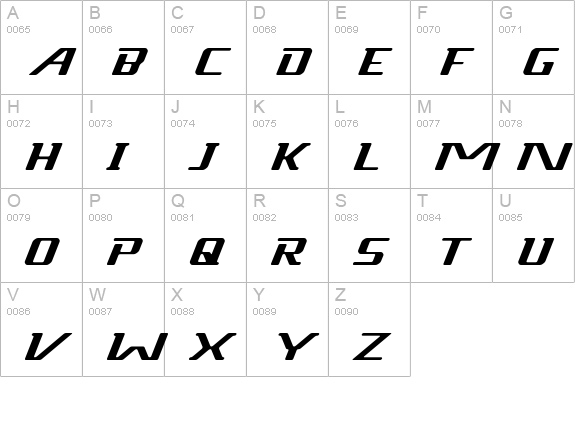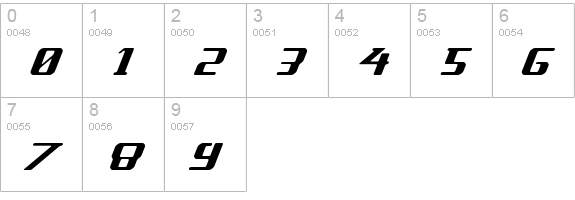
Sneakout Font Details
Introducing Sneakout font, a bold and playful typeface that adds an extra touch of excitement and intrigue to your designs. With its unique combination of sharp angles and whimsical curves, Sneakout font brings a sense of mystery and adventure to any project. This versatile font is perfect for a wide range of applications, from eye-catching headlines and attention-grabbing logos to posters, packaging, and more. Its bold and distinctive letterforms instantly capture attention, making every word pop off the page. Sneakout font is not only visually captivating, but it also offers the added bonus of being free. Yes, you read that right - this incredible font is freely available to download at FontsMarket.com. Now you can enhance your designs without breaking the bank. Whether you're a professional designer looking to elevate your work or a DIY enthusiast seeking to add a touch of creativity to your personal projects, Sneakout font is here to help. Its sleek and modern aesthetic will bring a fresh and contemporary vibe to any design. So why wait? Don't miss out on the opportunity to download Sneakout font for free at FontsMarket.com. Unleash your creativity and let this captivating typeface take your designs to new heights.